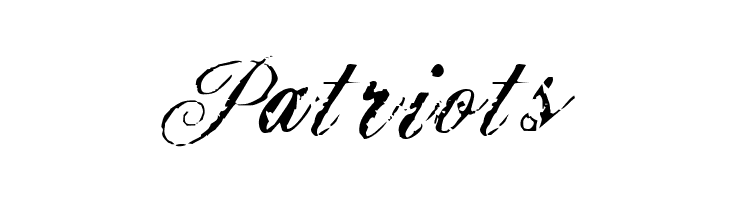
MilleniumSunset-Regular Font
- Font: MilleniumSunset-Regular
( Fonts by Anthem Type - Joey Nelson )
An elegant, flowing script font with ornate, interconnected letters.